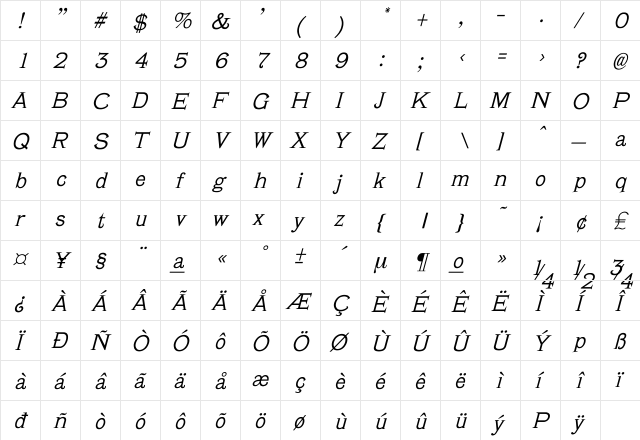
Verena Italic
Design Context for Verena Typeface
Verena offers clean, dependable letterforms without strong stylistic allegiance, making it a practical choice for designers who need flexibility. The slanted form adds forward momentum and visual energy.
Pro Tip: Try Verena for annotation and caption copy alongside an upright companion — the contrast in angle creates a dynamic but ordered typographic system.